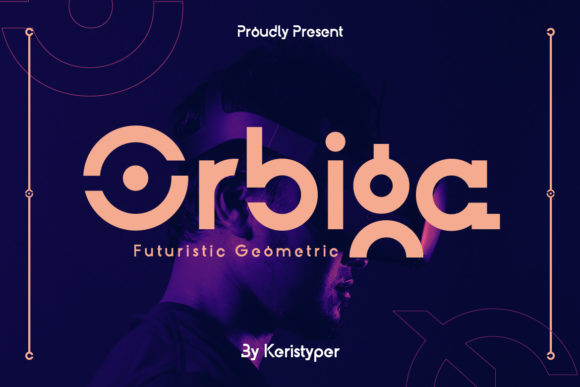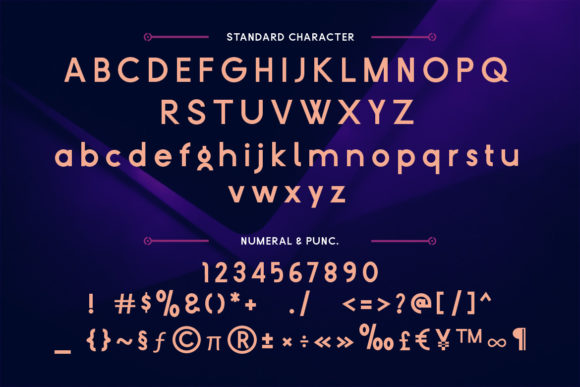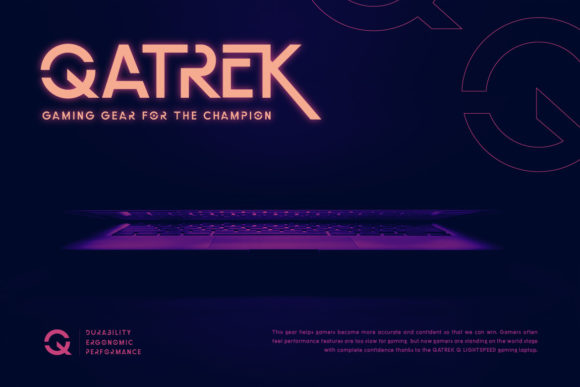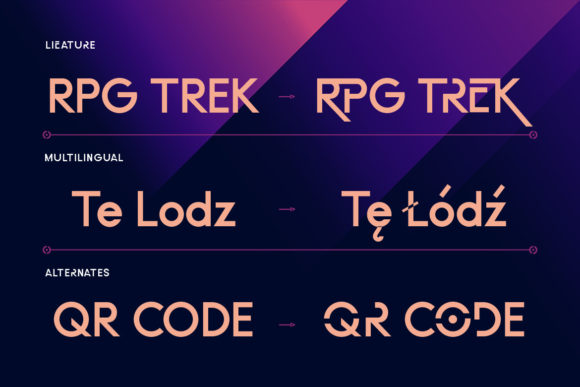
Orbiga Font: Modern Sans Serif Typography for Tech & Logo Design
About the Orbiga Font
Experience the unique personality of Orbiga Font, a font designed for impact. Orbiga is a modern minimalist futuristic sans serif font with a futuristic edge, and geometric corners, perfect for technology, digital, and modern futuristic themes. This font is good for logo design, Social media, Movie Titles, Books Titles, short text even long text letters, and good for your secondary text font with sans or serif.
Orbiga’s clean geometry and strong forms make it ideal for headlines, branding elements, and short impactful text on posters or packaging. Its minimalist nature lends itself well to technology-focused projects and modern corporate identities. However, extended use in body copy or UI elements is not recommended; its starkness can become visually fatiguing in larger blocks of text.
To complement Orbiga’s modern feel, consider pairing it with a warm serif like Playfair Display for a sophisticated contrast, or a softer sans-serif like Lato for a more approachable feel. A playful script font like Pacifico could add a touch of personality to projects requiring a more dynamic visual language. Geometric sans-serifs like Montserrat can also create a cohesive, futuristic palette when used alongside Orbiga.
Orbiga projects a confident, modern, and slightly assertive personality. It’s best suited for brands aiming for a clean, high-tech image, or those seeking a strong, memorable visual identity.
Orbiga Font Usage Examples
Orbiga Font Example